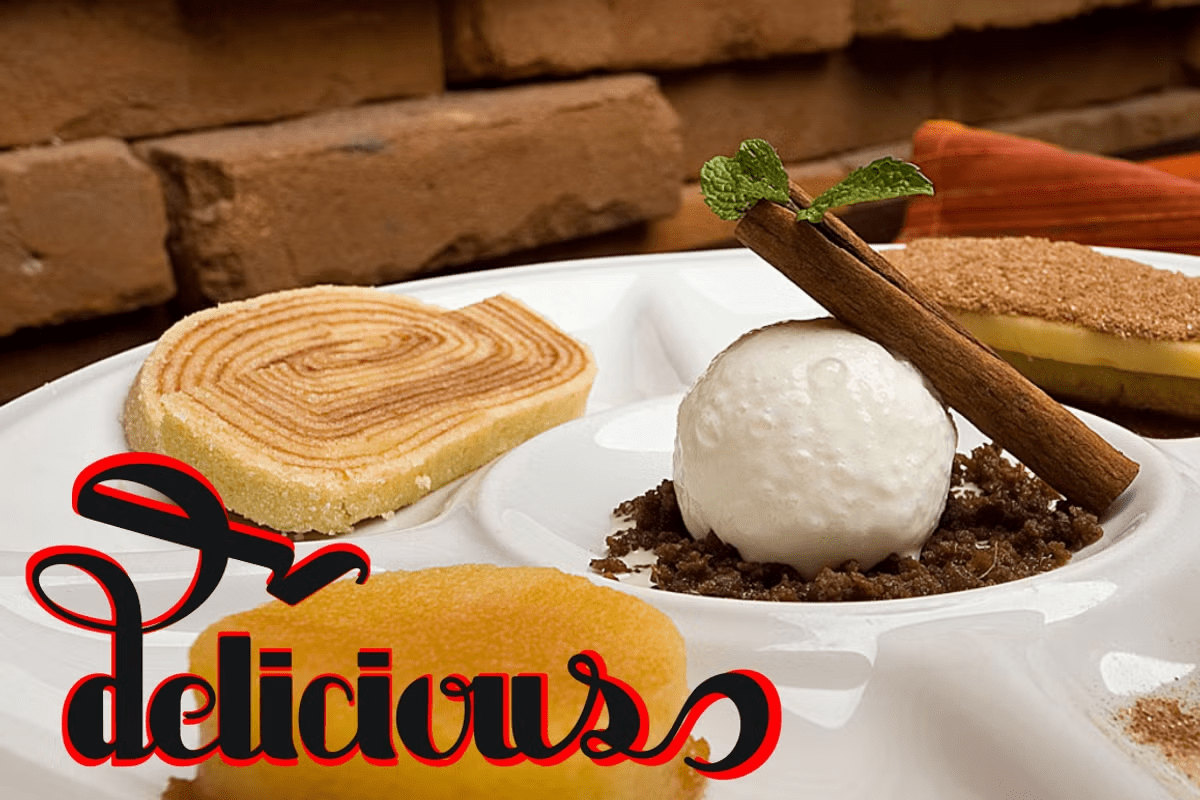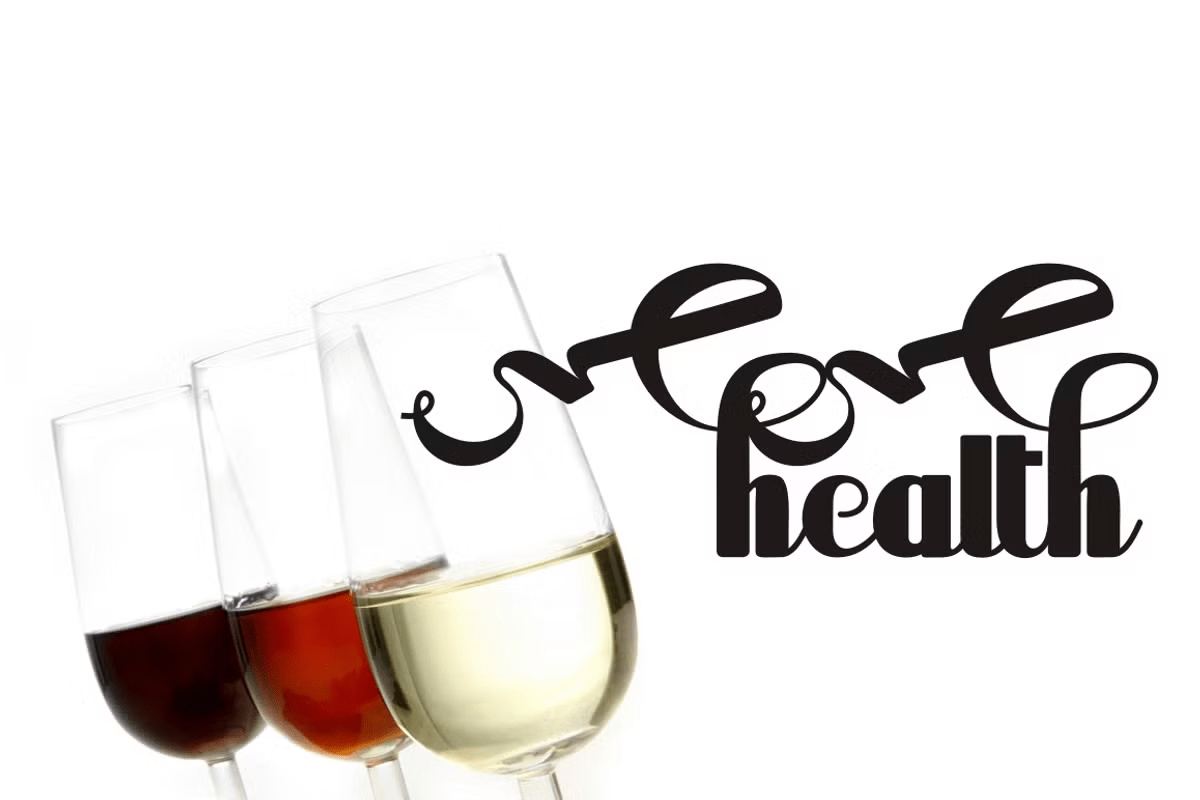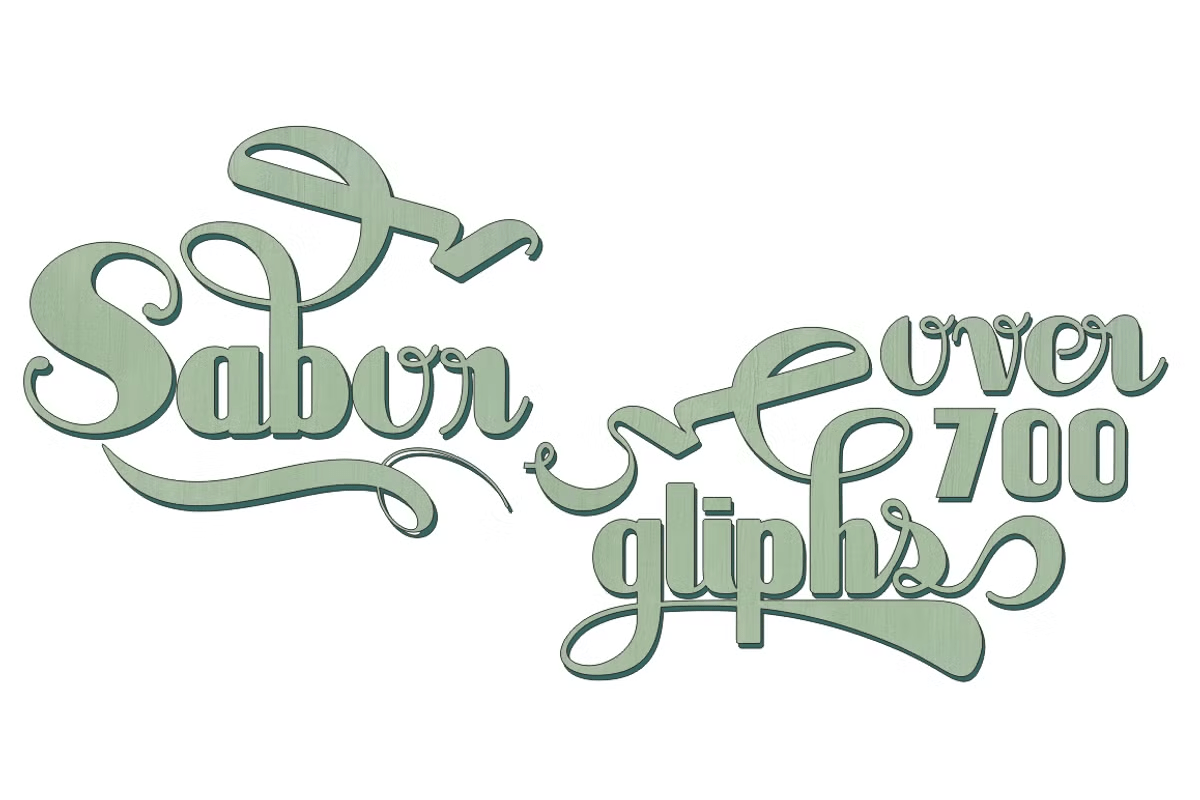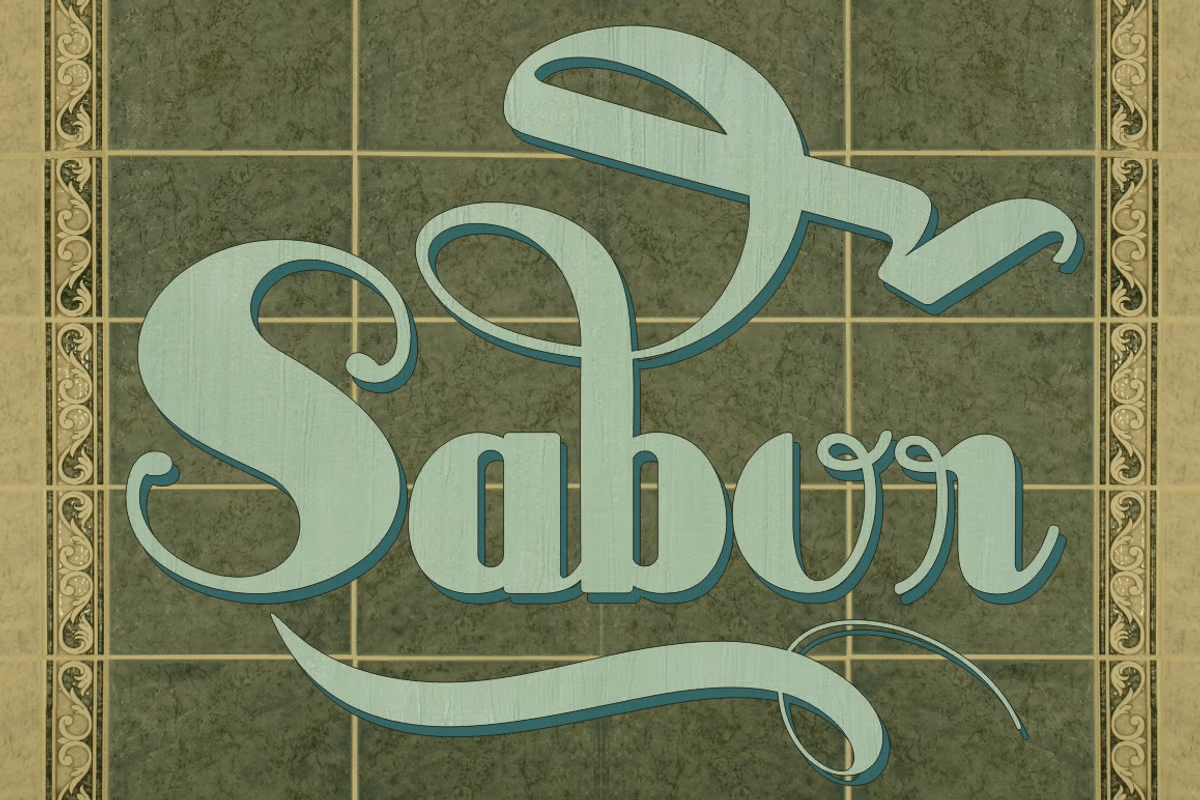
About Sabor
Sabor is a voluptuous upright connected display font with mixed taste of script fonts. There were many inspirations for Sabor, but all started with a book from the 1950s about the battles of World War II. To that first sketches of a naive dense display…